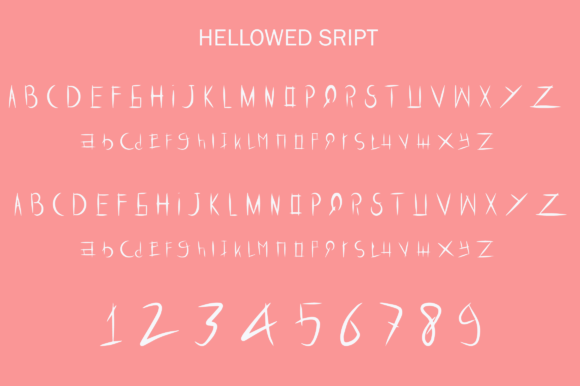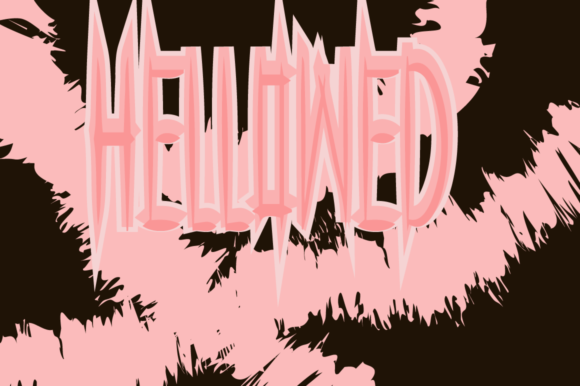
Introduction to Hellowed Font
As a designer, there’s nothing quite like the thrill of discovering a new font that sparks creativity and elevates your work to the next level. For me, that moment came when I stumbled upon the Hellowed Font – a stunning display font that has since become an essential design resource in my toolkit.
With its powerful and daring strokes, the Hellowed Font adds a touch of sophistication and elegance to any design, whether it’s a logo, poster, or digital asset. Its versatility makes it an ideal choice for a wide range of creative projects, from branding and advertising to editorial and artistic endeavors.
Key Features of Hellowed Font
- Unique, hand-drawn style with a transparent background for easy customization
Honest Review: Hellowed Font
I recently stumbled upon the Hellowed Font, a free download that has caught my attention for its unique design. As a designer, I appreciate high-quality resources that can elevate my creative projects.
What works well with the Hellowed Font is its modern and elegant aesthetic. The font features a transparent background, making it versatile for use on various backgrounds. I particularly like how it adds a touch of sophistication to my designs. ✨
- Unique and modern design aesthetic
- Transparent background for versatility
However, I do have some concerns about the Hellowed Font. The font family is quite limited, which may not be ideal for projects that require a wide range of font styles. ⚠️ Additionally, the font may not be compatible with older software or systems.
Overall, I’m impressed with the Hellowed Font’s potential to elevate my designs. While it has some limitations, its unique design and high-quality aesthetic make it a valuable addition to my design resource library.
Hellowed Font is commonly used in:
1. Branding and marketing materials.
2. Social media graphics.
3. Print designs.
4. Digital products.